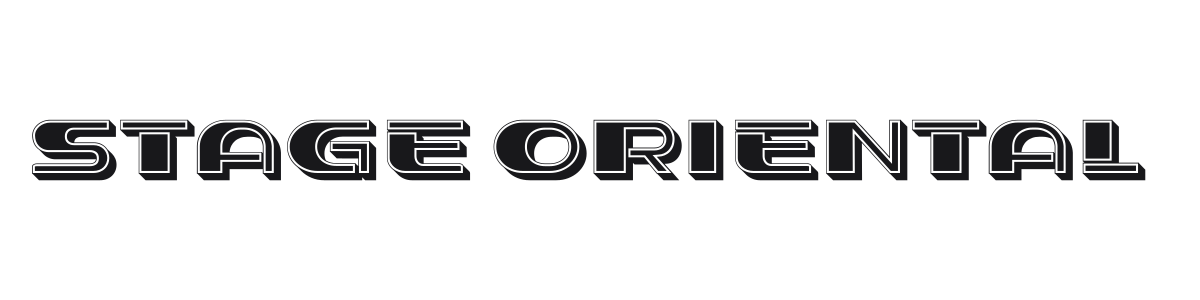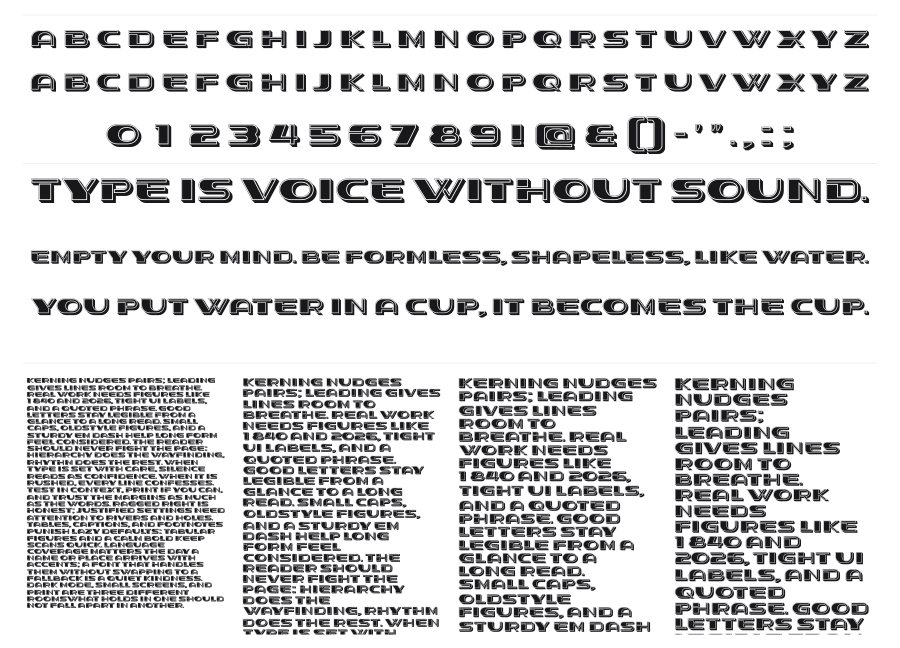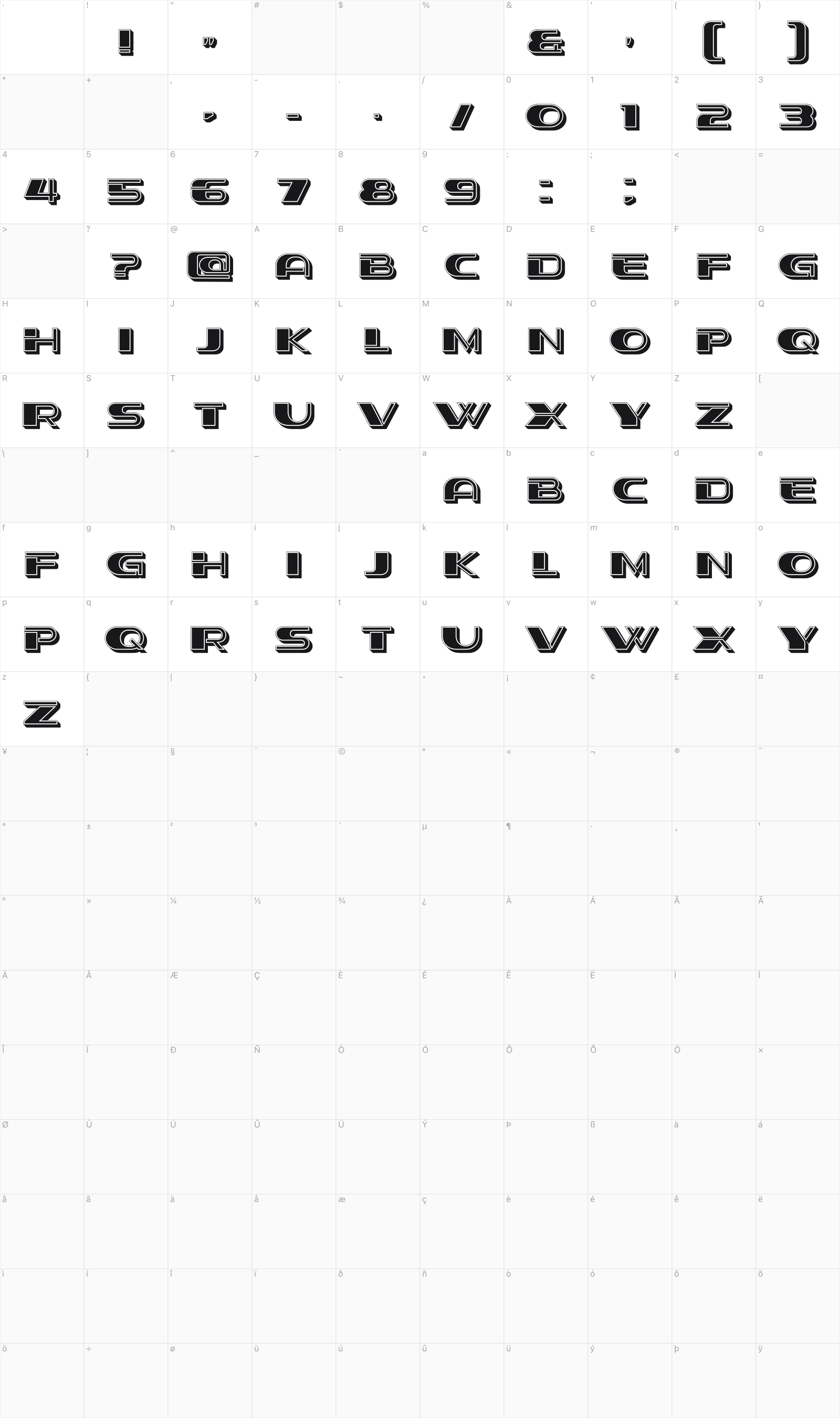
Stage Oriental
Stage Oriental is a bold geometric display face with a dramatic inline drop-shadow treatment that recalls vintage theater marquees and art-deco signage. The heavy, wide characters are layered with ruled inner lines and a strong dimensional shadow, giving every word a sense of spectacle. Part of the free Stage family, it works best at large sizes where the decorative detail can shine.